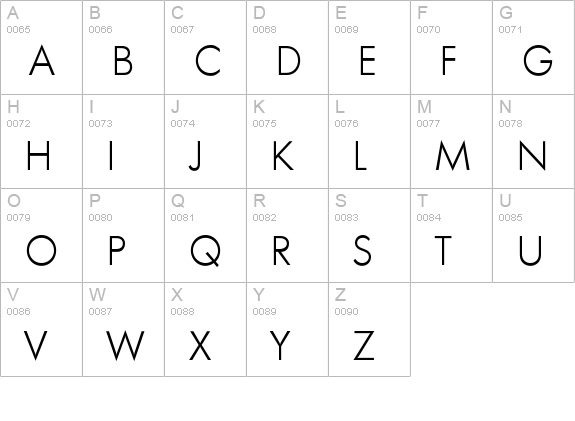
Limerick-Light Font Details
Limerick-Light is a refined, elegant variant in the Limerick typeface family \xE2\x80\x94 well suited to elegant body text, refined sub-headings, and luxury branding.
Limerick-Light font is a stylish and modern typeface that exudes sophistication and elegance. With its sleek lines and delicate curves, this font is perfect for adding a touch of class to any design project. Whether you're creating a logo, poster, or website, Limerick-Light font will make your text stand out with its refined appearance. Best of all, Limerick-Light font is completely free to download at FontsMarket.com. You can access this stunning font at no cost and use it in your personal and commercial projects without any restrictions. Don't miss out on the opportunity to elevate your designs with the timeless beauty of Limerick-Light font. Download it today and start creating stunning typography that captures attention and leaves a lasting impression.